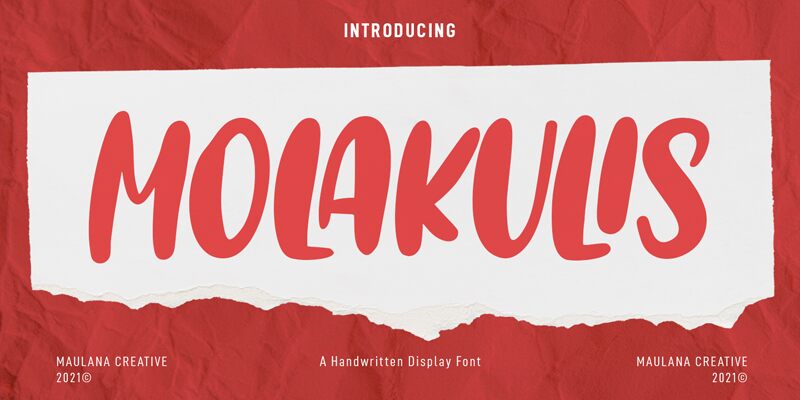
Molakulis Free Regular
Molakulis, the latest creation from MaulanaCreative, is a smooth brush font that exudes boldness and confidence. Its condensed style adds a touch of elegance to any design, making it perfect for modern branding projects or eye-catching headlines. Molakulis' bold strokes make it ideal for posters, packaging designs and social media graphics. With its smooth curves and unique letterforms, this font is sure to grab attention and leave a lasting impression on your audience. Try Molakulis today and elevate your next project to new heights!